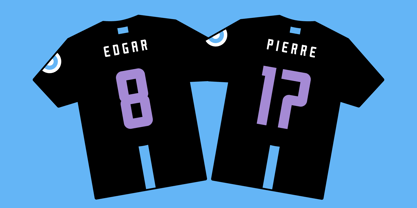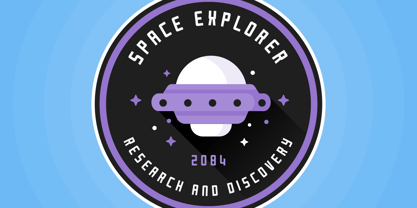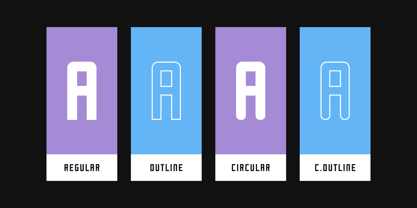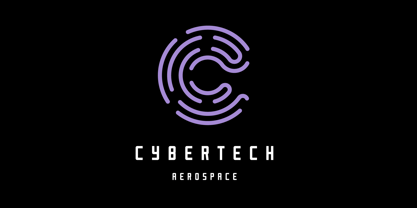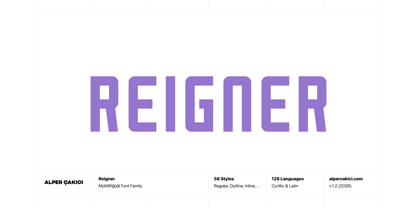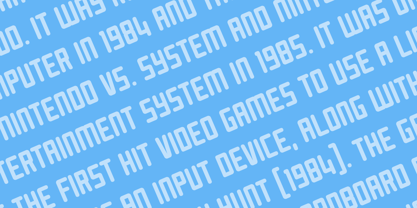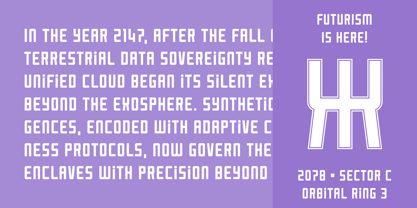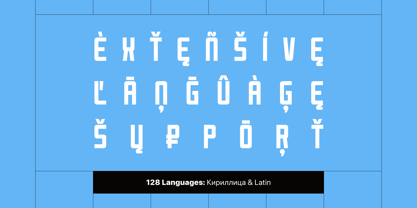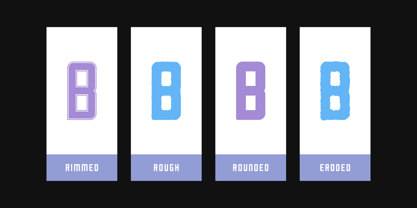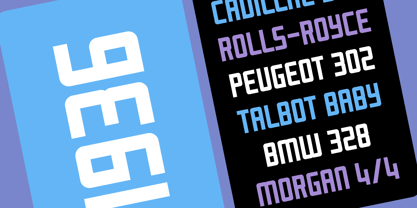
Reigner
by AlperCakici
The Reigner Font Family was designed by Alper Çakıcı and published by AlperCakici. Reigner contains 58 styles and family package options. More about this family
🚀 Reigner — The Ultimate Futuristic Typeface System Step into the future of typography with Reigner, a high-impact multi-style type family engineered for designers who demand versatility, personality, and modern precision. Built on a foundation of futuristic geometry and minimalist design philosophy, Reigner offers a massive collection of 58 carefully crafted styles — ranging from clean technical structures to expressive textured, eroded, rimmed, inline, brush, and rounded variations. From sleek digital interfaces to cinematic sci-fi titles, Reigner adapts effortlessly across creative directions while maintaining a strong, cohesive visual identity. ✨ Why Designers Choose Reigner ✔ 58 Professional Styles Includes Angular, Circular, Rounded, Brush, Rough, Inline, Rimmed, Pencil, Noise, Eroded, Outline, and Italic variations — offering exceptional creative flexibility. ✔ Futuristic + Minimalist Design DNA Sharp geometric construction meets clean modern aesthetics, perfect for forward-thinking visual projects. ✔ Built for Creative Versatility Ideal for: Technology & startup branding Gaming & esports graphics Posters & album covers Motion graphics & video titles UI/UX & digital interfaces Product packaging & signage Sci-fi & cyberpunk design themes ✔ Optimized for Print & Screen Carefully refined letterforms ensure clarity and consistency across small UI text, large displays, and high-resolution print. ✔ Extensive Language Support Supports 128 languages with robust Extended Latin + Cyrillic coverage, helping brands communicate globally.
Designers: Alper Çakıcı
Foundry: AlperCakici